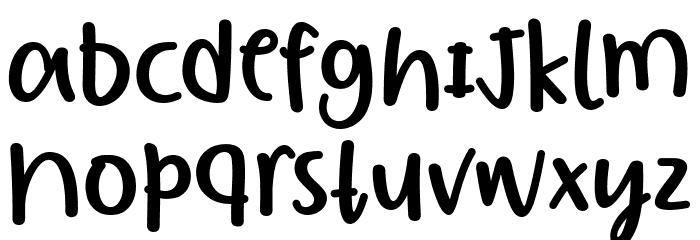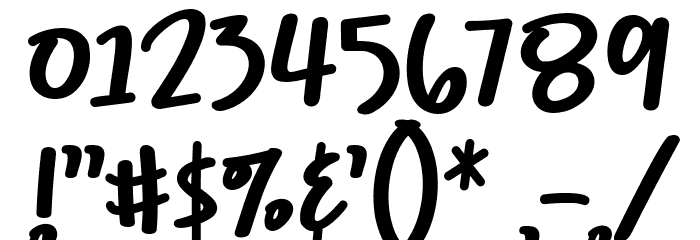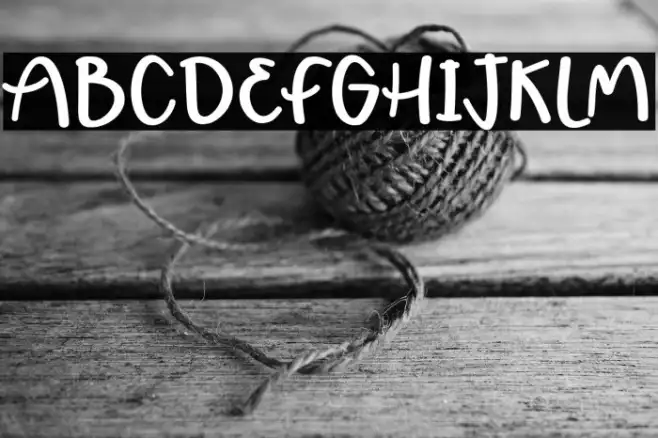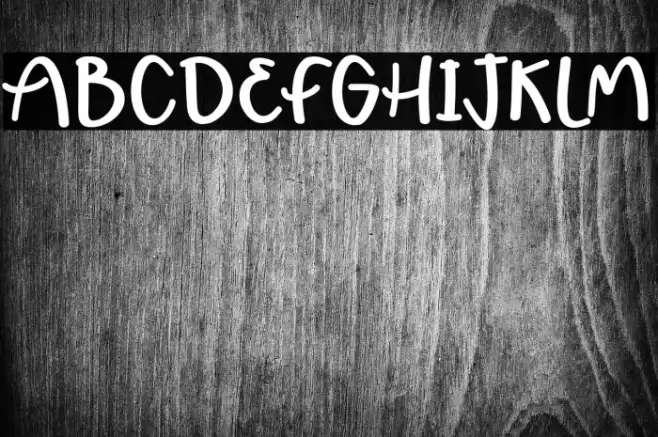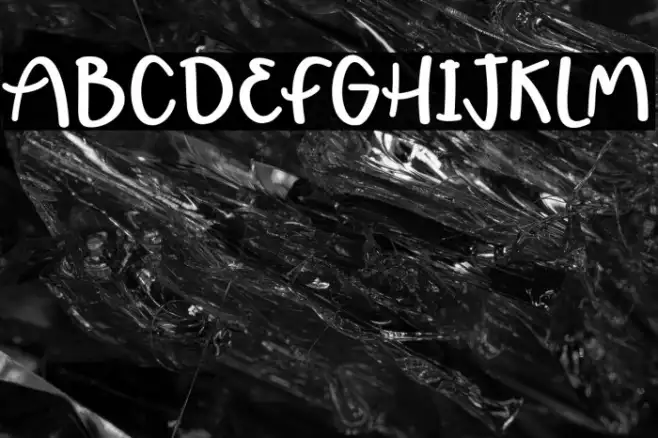
Borjuis Font
This playful and energetic font features a handwritten style with a casual and friendly appearance. The letters are bold and rounded, giving them a soft and approachable look. The strokes are consistent in width, providing a uniform appearance across all characters. The font includes both uppercase and lowercase letters, numerals, and a variety of special characters, making it versatile for different uses. Its informal style is perfect for projects that require a personal touch or a fun and lively vibe.
A playful, handwritten font with bold, rounded letters and a casual style.
- Proposed Projects: Ideal for children's books, greeting cards, playful branding, and social media graphics.
- Category: Handwritten
- Overall Style: Playful
- Use Case: Headlines, Logos, Informal Text